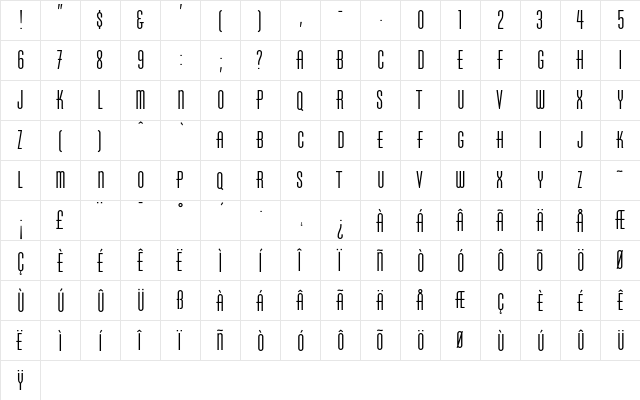
Chrysler-Condensed Regular Font Preview
Chrysler-Condensed Regular
Chrysler-Condensed Regular Font Details
Design Context for Chrysler-Condensed Typeface
Chrysler-Condensed takes a measured approach to typography — its balanced proportions and neutral character make it a reliable workhorse for both digital and print work. Its narrow stance lets it pack a punch even in space-constrained designs.